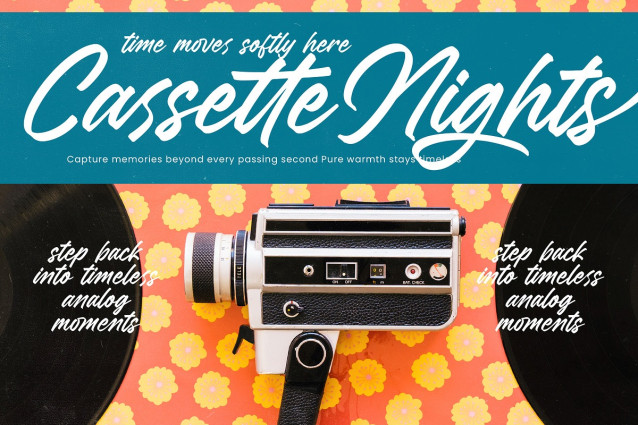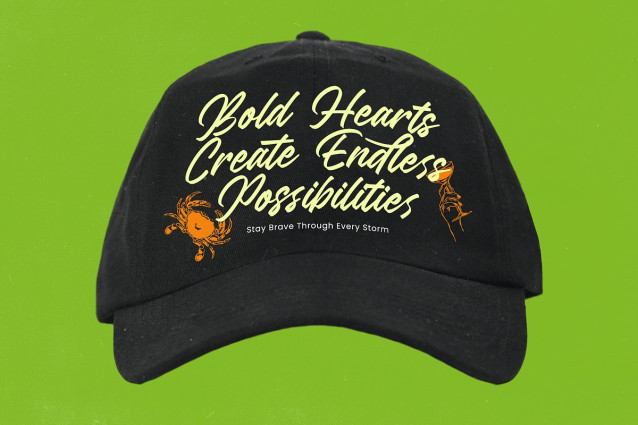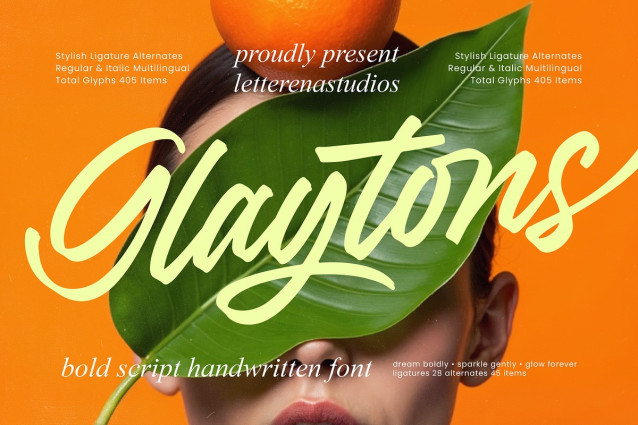
Glaytons Font
Glaytons Font – Bold Script Handwritten Font. This high-impact typeface features fluid, hand-drawn strokes that capture a sense of organic energy and modern elegance. Its bold weight ensures that your headlines command attention while maintaining a stylish, personal aesthetic that resonates with contemporary audiences looking for a bespoke visual identity.
Precision meets global scalability with a comprehensive set of 405 premium glyphs and meticulously crafted characters. With its extensive multilingual support, Glaytons – Bold Script Handwritten Font adapts seamlessly across global markets, making it incredibly versatile for international projects. The inclusion of 28 ligatures and 45 alternates allows for unparalleled customization, ensuring that every layout looks like a custom piece of hand-lettering tailored for a global audience.
Transform your brand identity with a font engineered for premium applications and high-end editorial design. This versatile script is the ideal choice for luxury branding, cosmetic packaging, lifestyle magazines, and dynamic logo design. It is perfect for creative entrepreneurs and professional marketers who need a distinctive signature style that bridges the gap between casual charm and commercial professionalism.
Experience the perfect blend of artistic flair and technical excellence in every single character. Glaytons – Bold Script Handwritten Font provides both regular and italic styles, offering designers the creative flexibility needed for layered compositions and compelling social media graphics. Secure this essential design asset today to infuse your next visual storytelling project with the bold confidence and unmistakable fluidity it deserves.